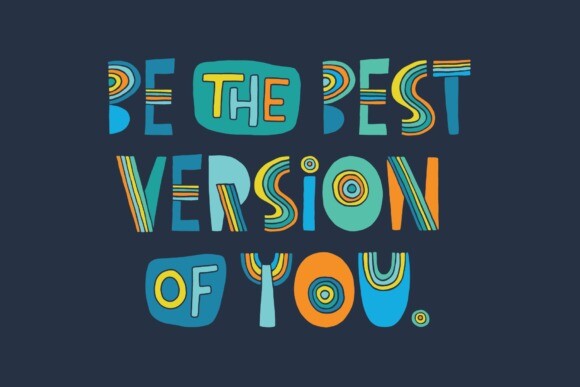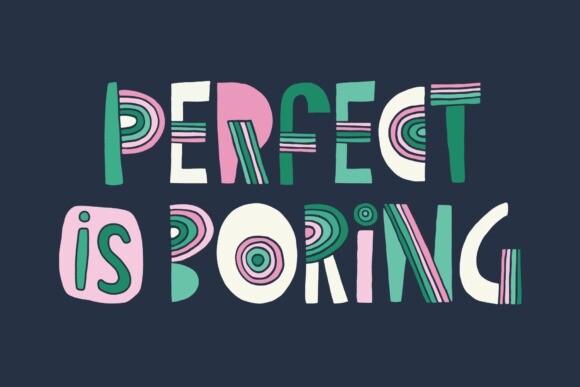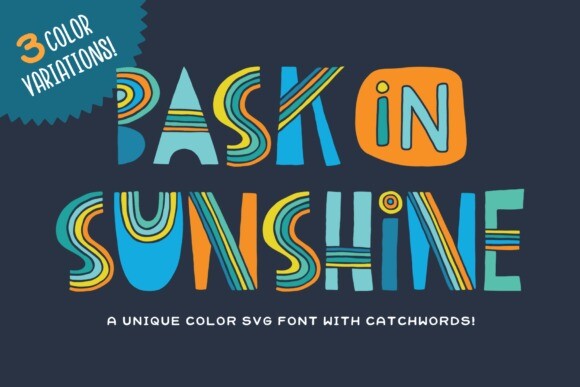
Bask in Sunshine is a unique and charming hand-drawn color font. Ligatures will appear automatically when using programs that support OpenType and have the feature turned on. Catchwords can be found using discretionary ligatures or a glyphs panel.